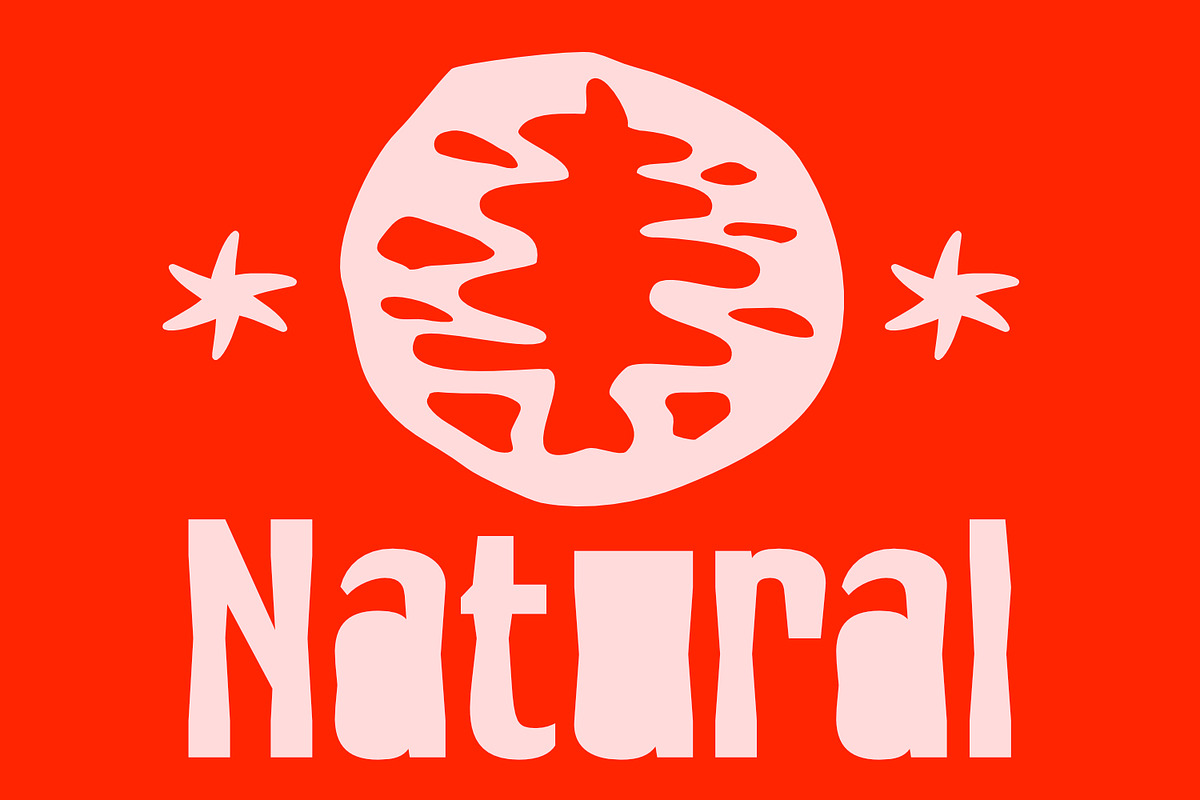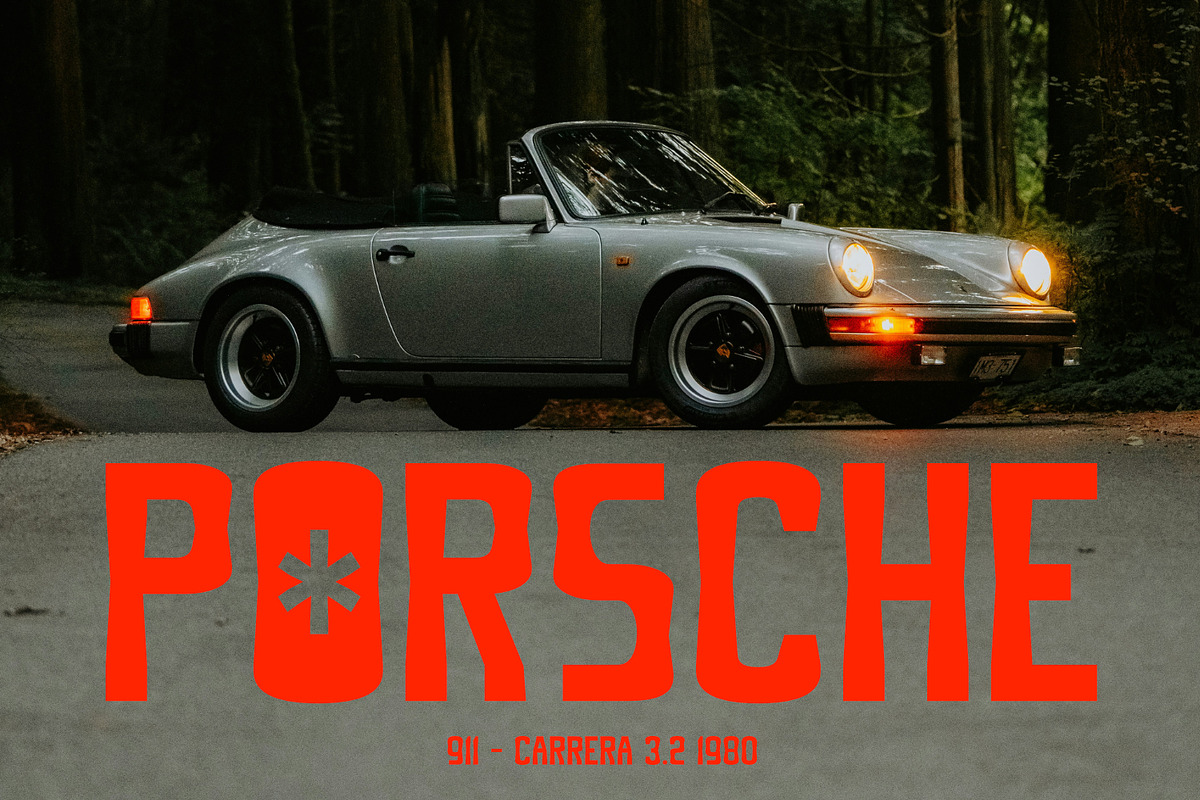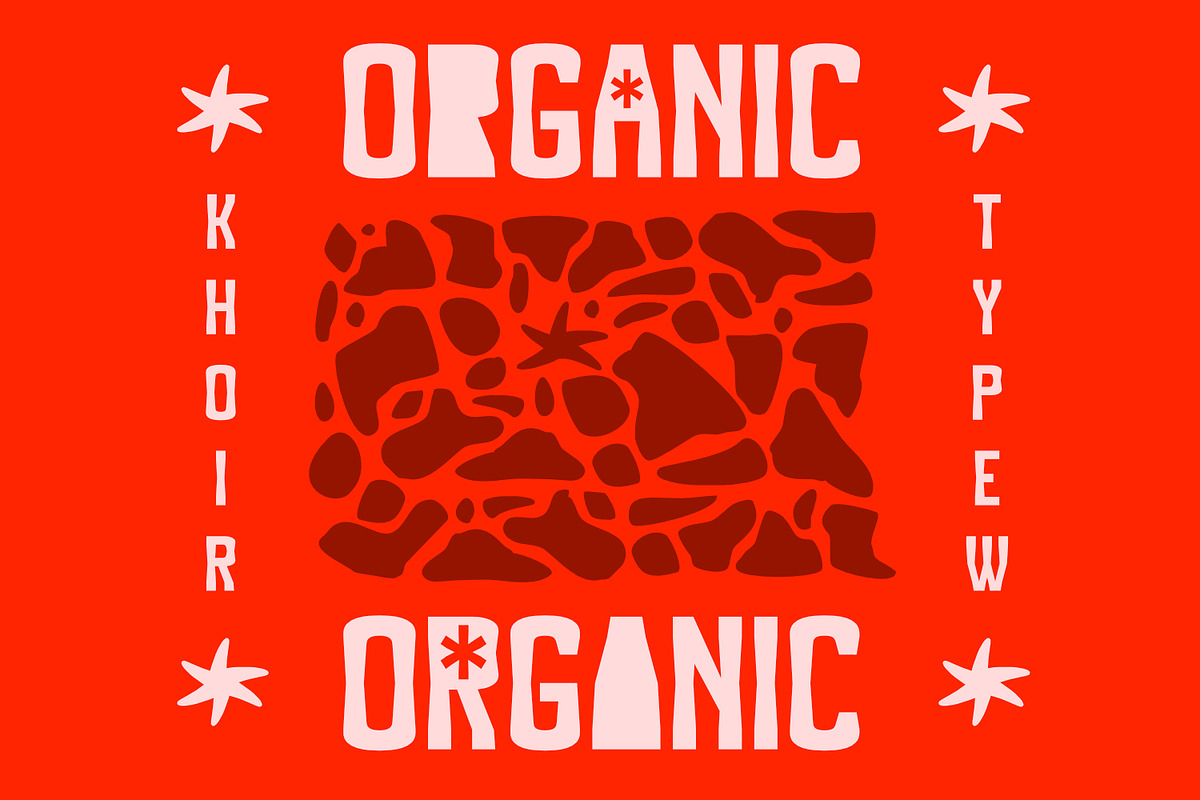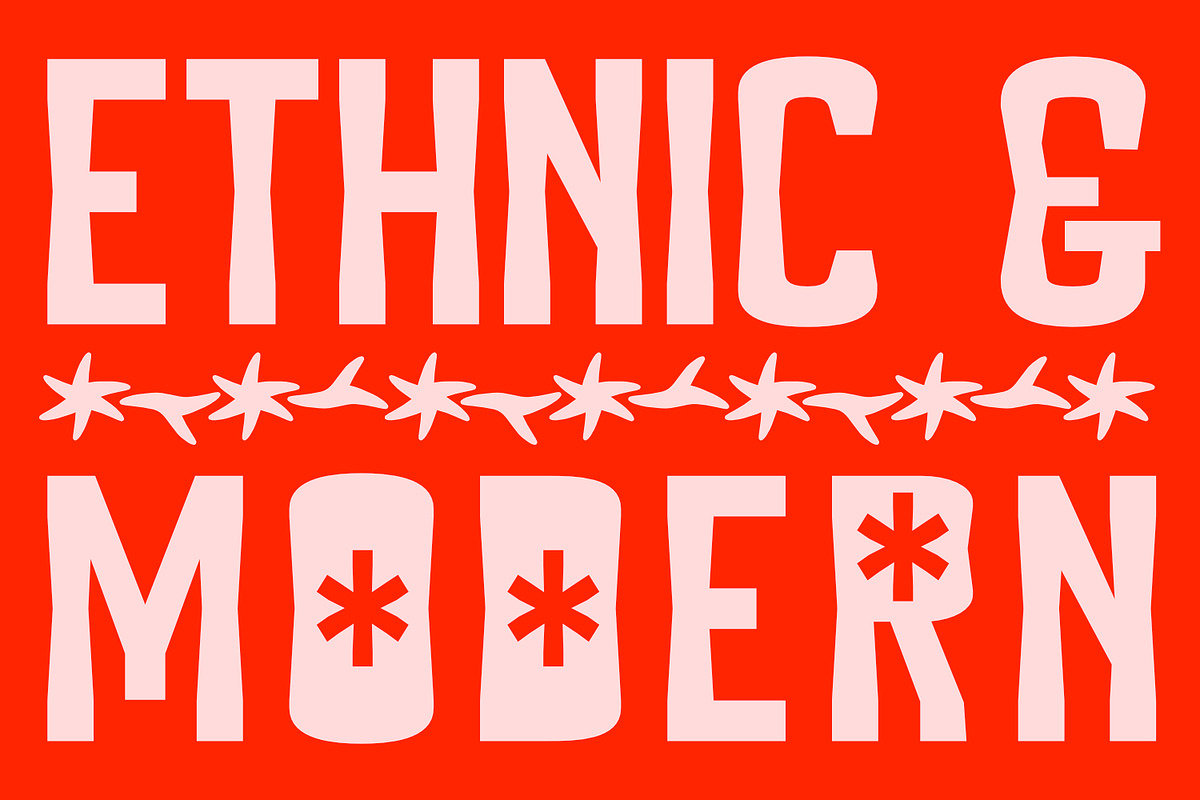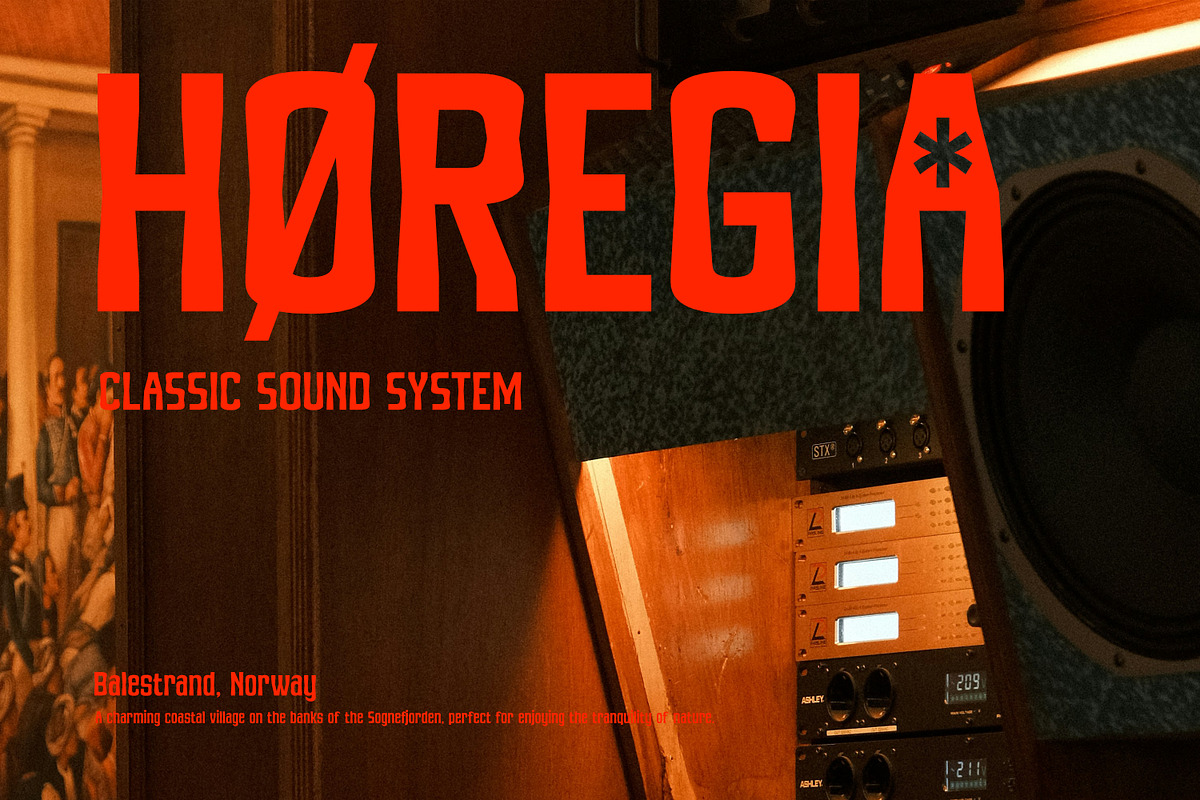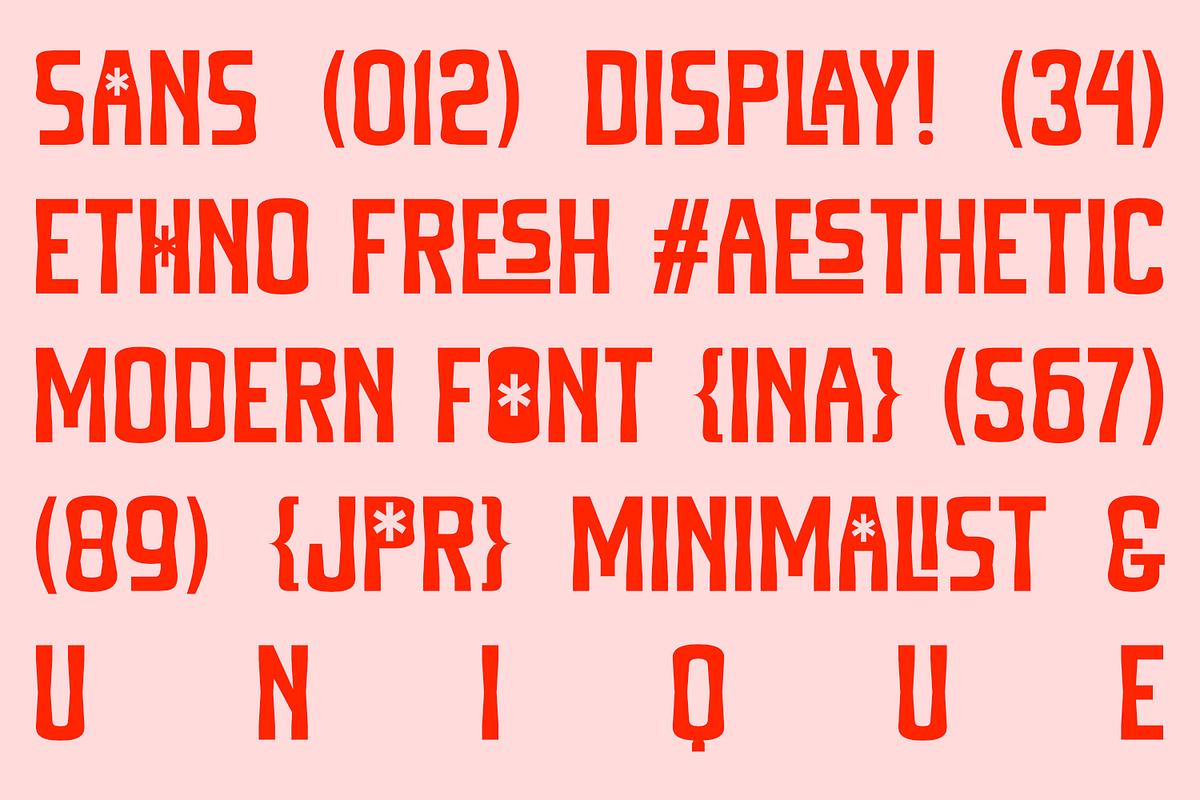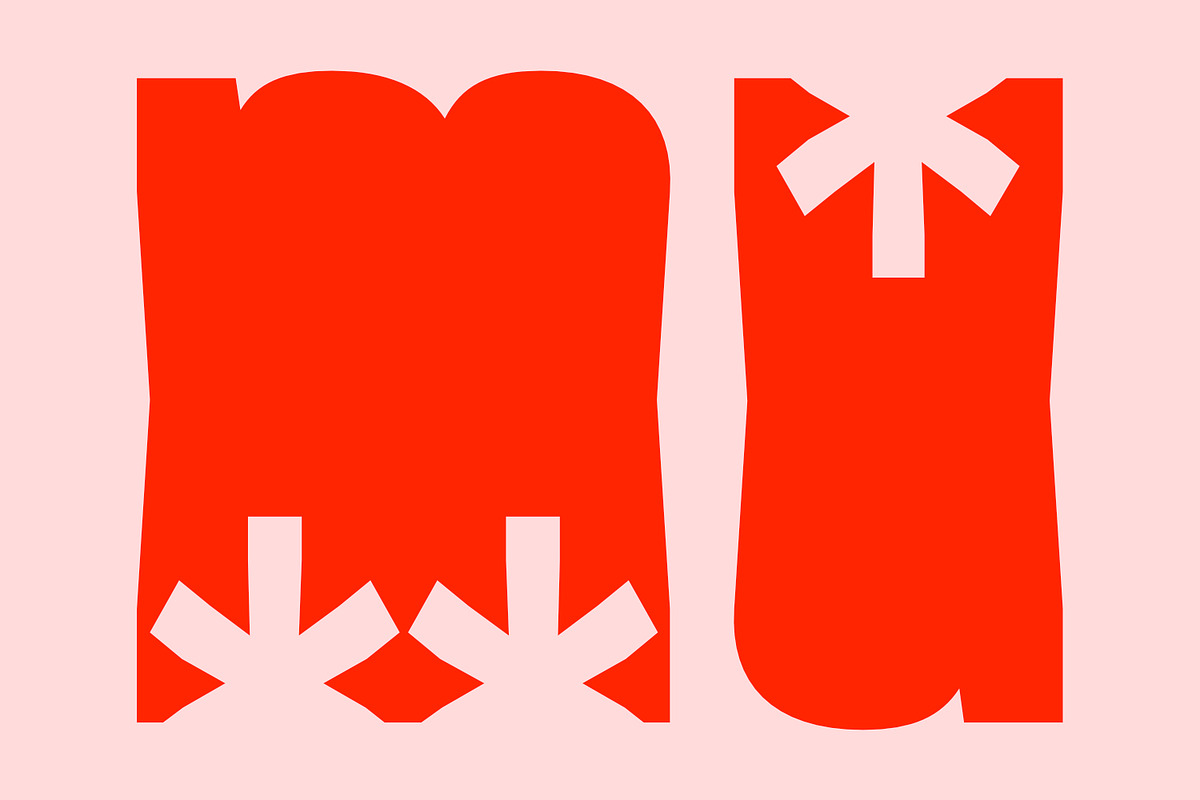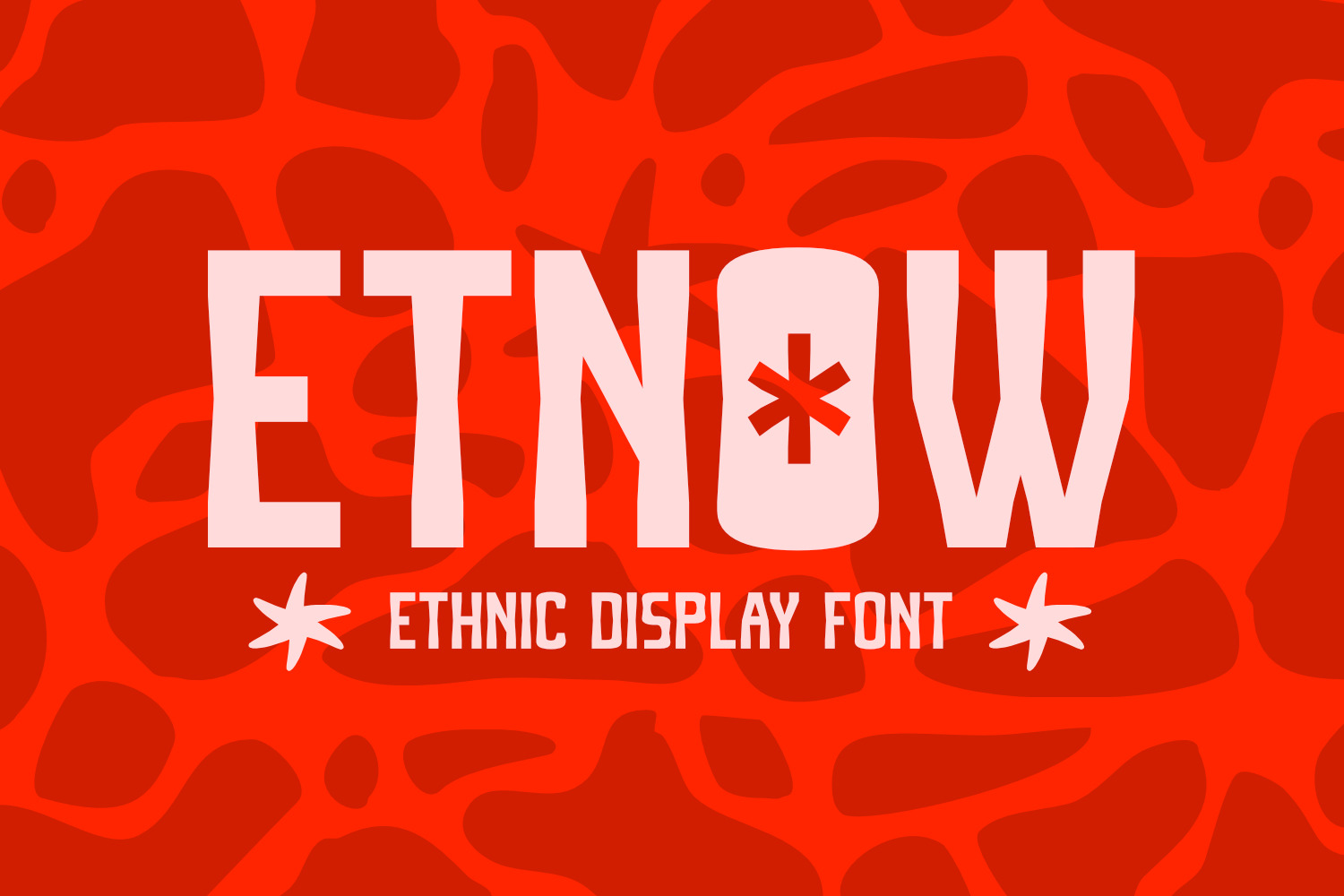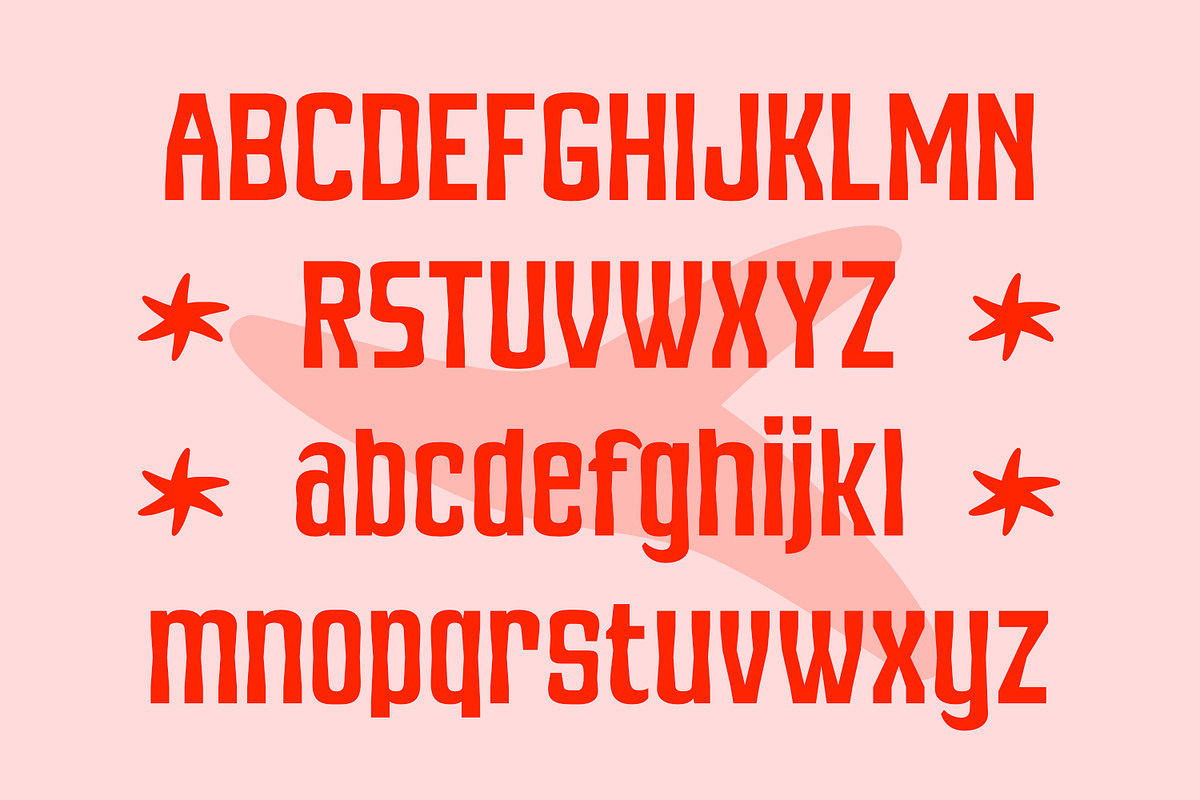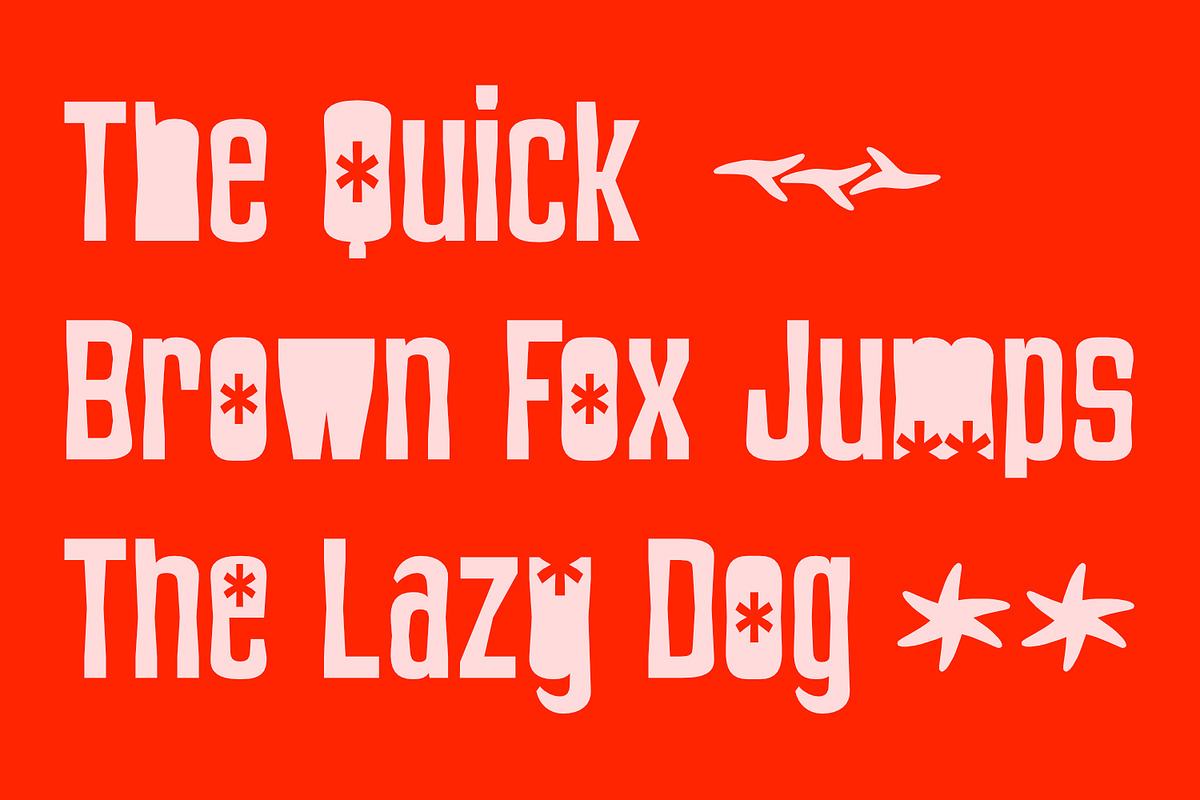
Etnow - Ethnic Font
ETNOW is a modern sans serif font inspired by the Fresh Ethno design style that combines natural elements into a beautiful motif. The ETNOW font, shaped from one corner to another, creates a distinctive element yet not too traditional, making it suitable for design projects with or without cultural nuances, such as festivals, albums, covers, and more. ETNOW also has alternative fonts that make it feel more characterful, more flexible, and dynamic.